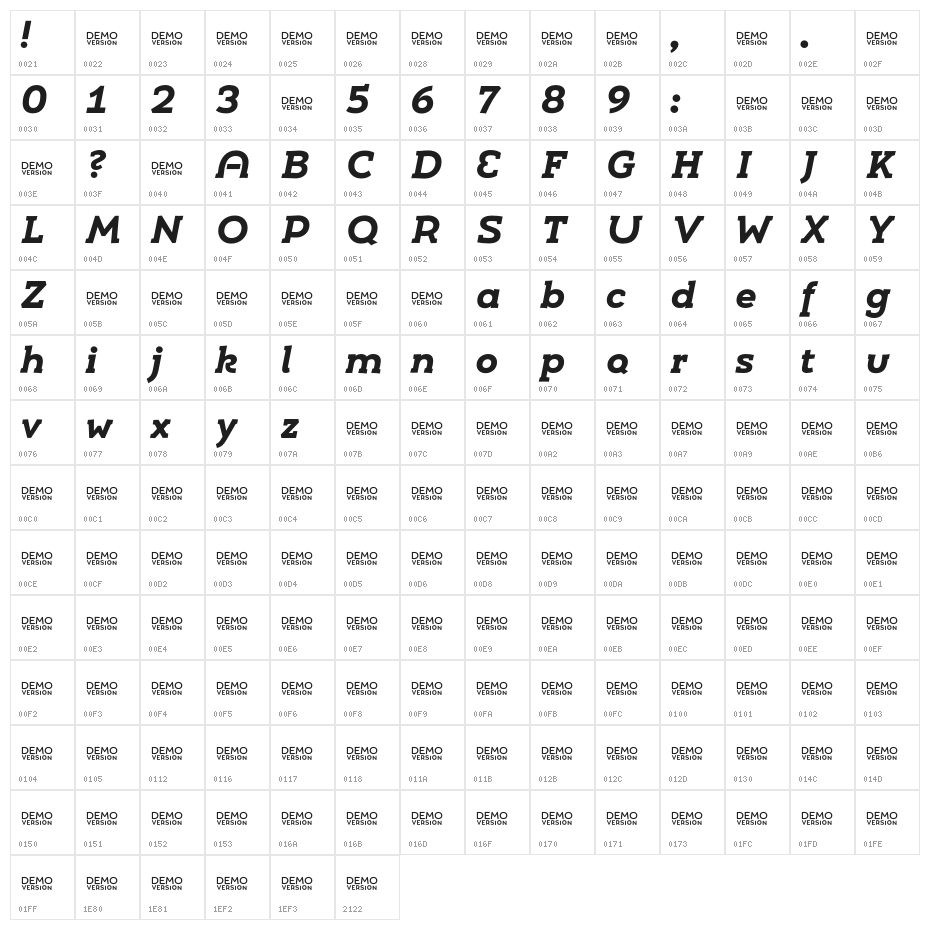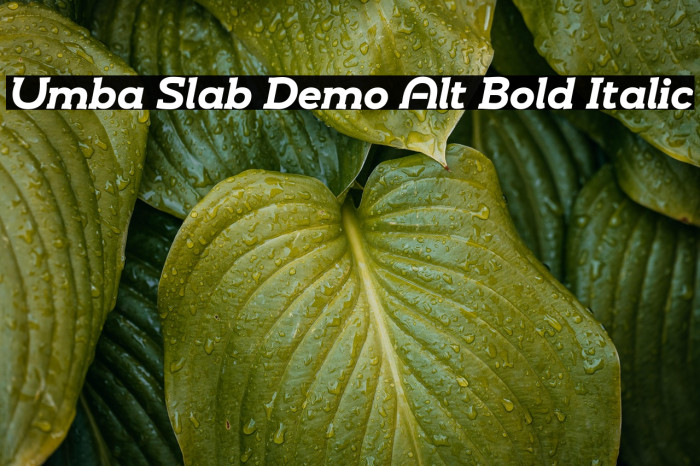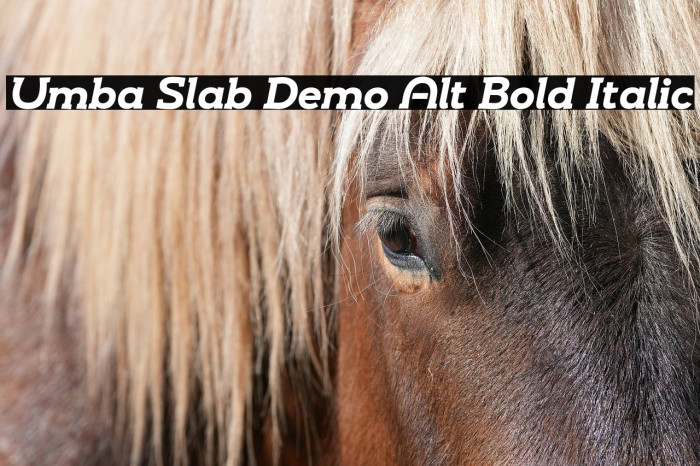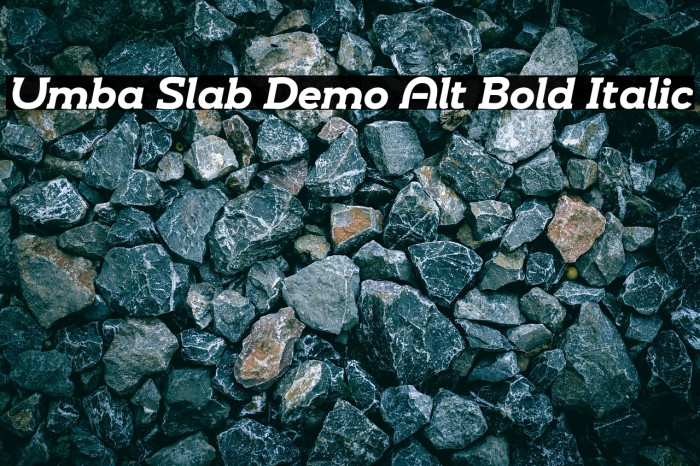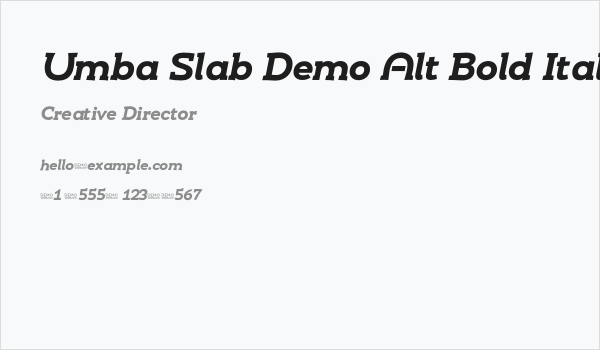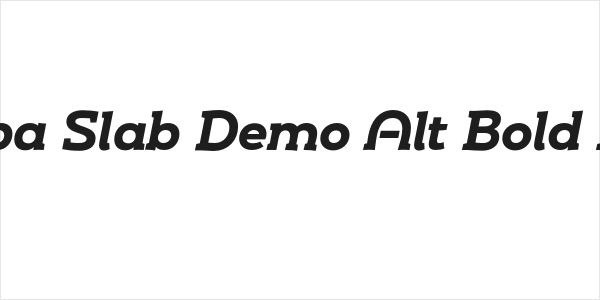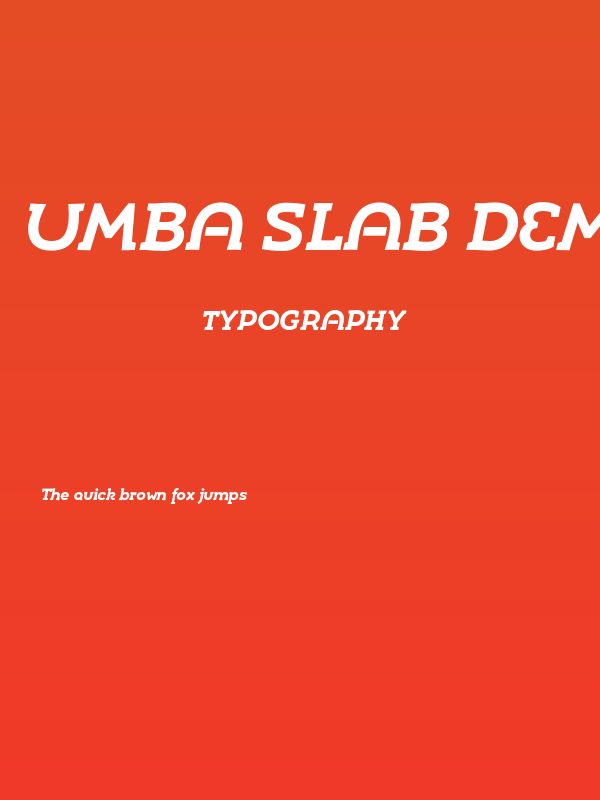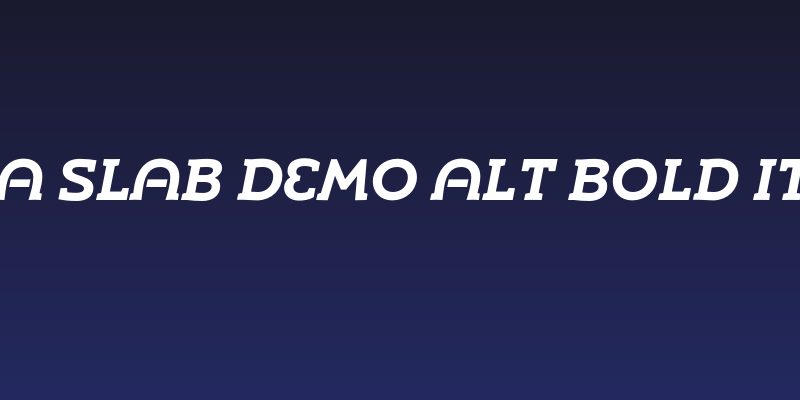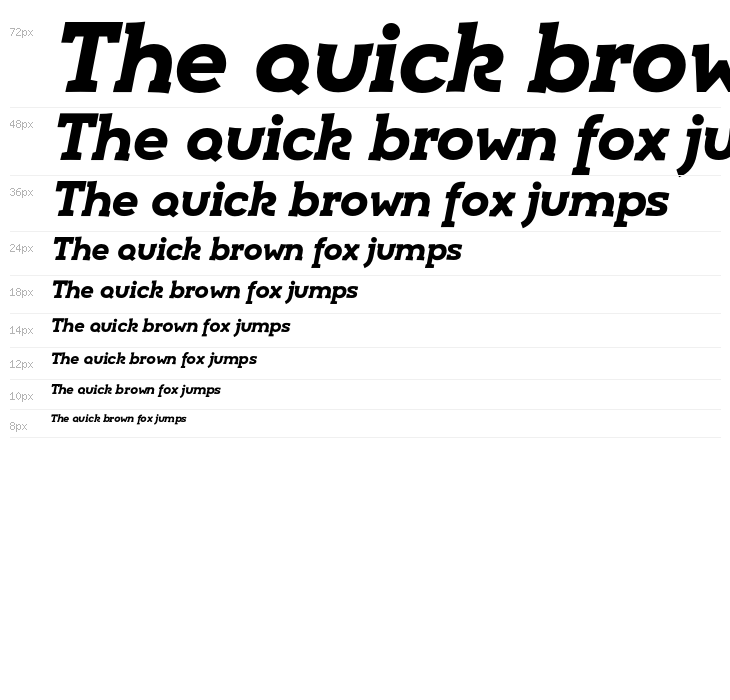
Umba Slab Demo Alt Bold Italic Font
Umba Slab Demo Alt Bold Italic Description
This font features a bold and italicized style, characterized by its strong slab serifs and dynamic italic slant. The uppercase letters exhibit a robust presence with slightly curved strokes, while the lowercase letters maintain a consistent weight and flow. The numbers are bold and clear, ensuring legibility. Special characters are designed with the same boldness and italic slant, providing a cohesive look across all glyphs. The font's overall appearance is modern yet retains a classic touch, making it versatile for various design needs.
| Proposed Projects | Ideal for branding, headlines, posters, and editorial design where a strong, impactful typeface is needed. |